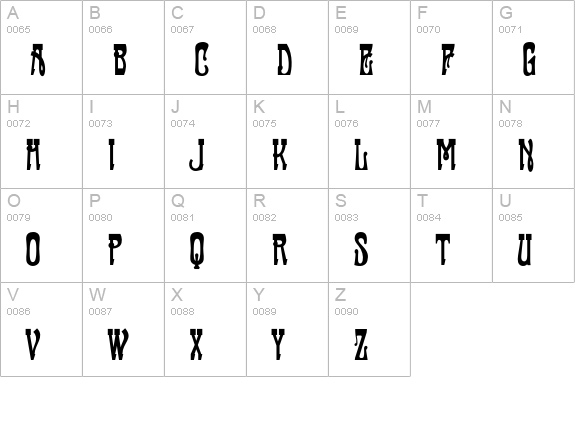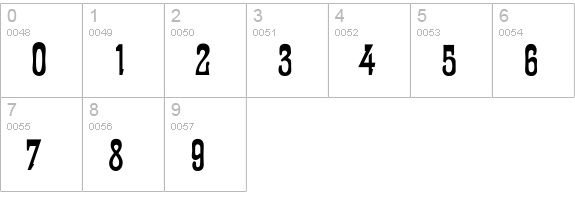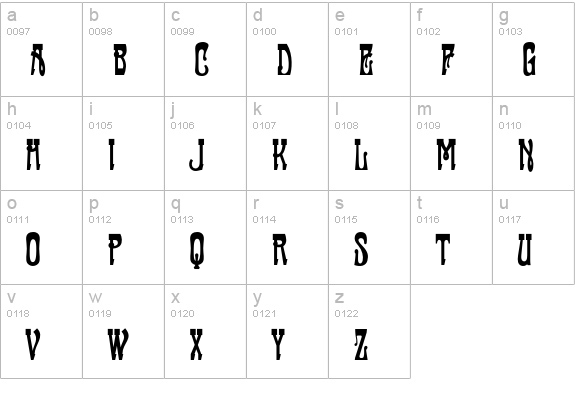
Tambourin Font Details
Tambourin font is a stunning and versatile typeface that will add a touch of elegance to any design project. With its graceful curves and intricate details, this font is perfect for creating eye-catching logos, headlines, and invitations. What makes Tambourin font even more remarkable is that it is completely free to download. Yes, you read that right - this exquisite font can be yours without spending a dime. Whether you are a professional designer or someone who simply enjoys playing around with typography, Tambourin font is a must-have in your collection. Its clean and sophisticated style makes it suitable for a wide range of applications, from branding to editorial design. To get your hands on this beautiful font, head over to FontsMarket.com. There, you can freely download Tambourin font and start using it in your projects right away. Don't miss out on this incredible opportunity to enhance your designs with a truly remarkable typeface.